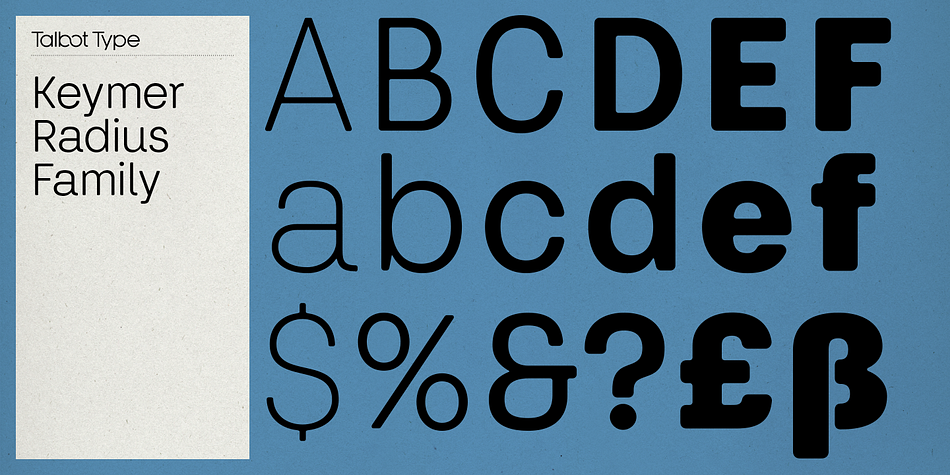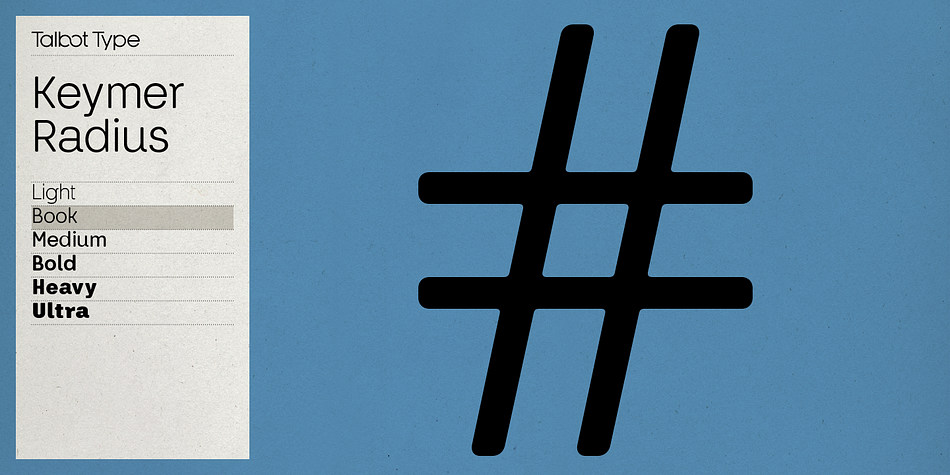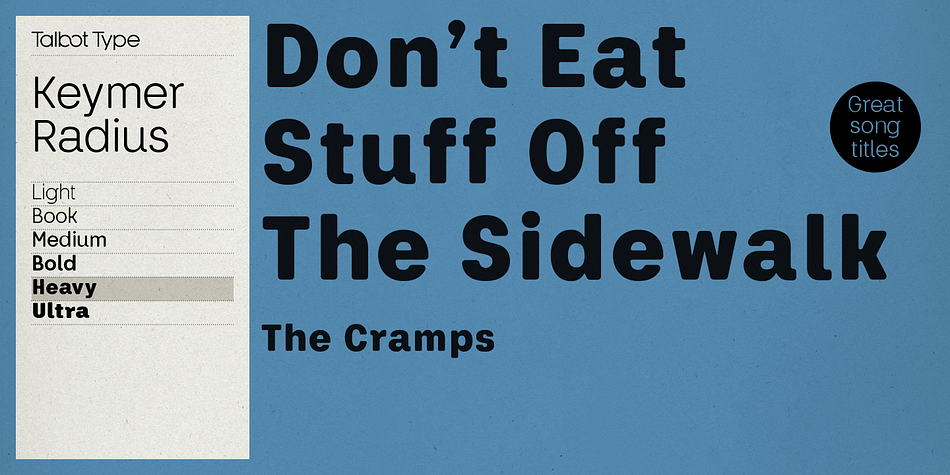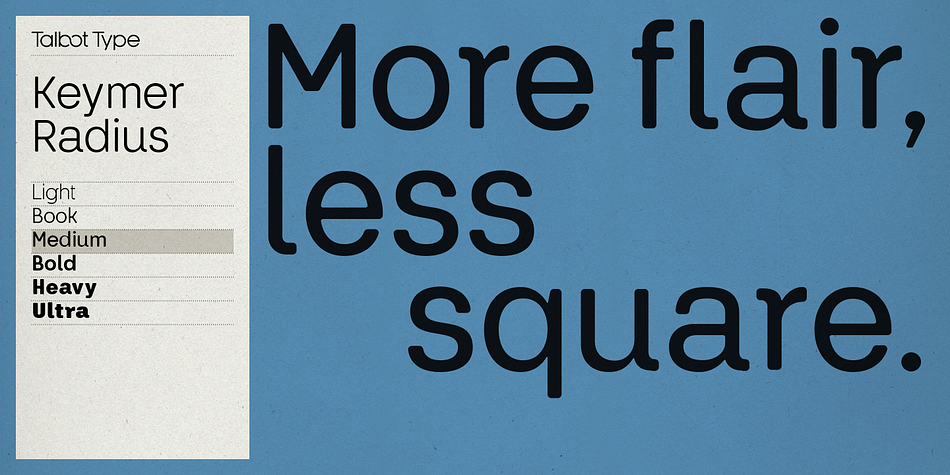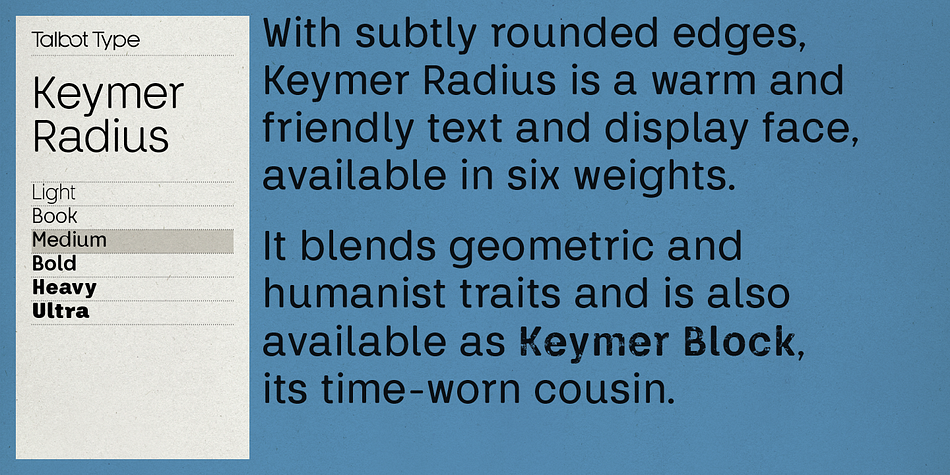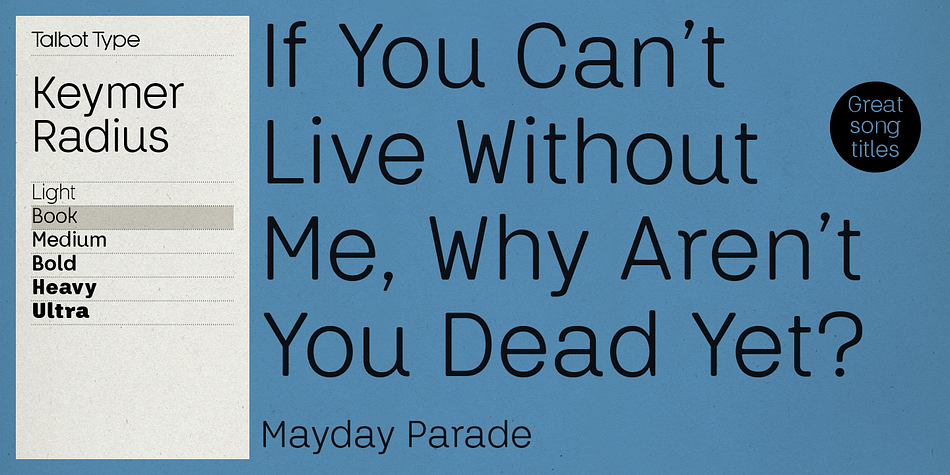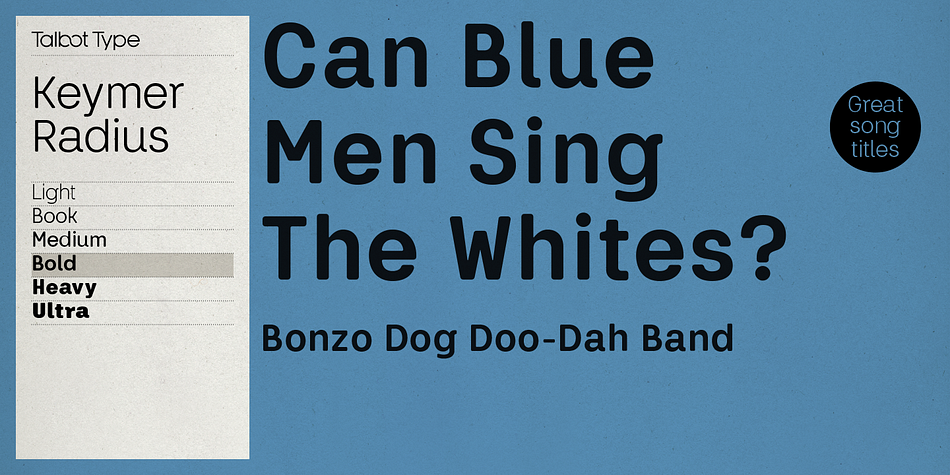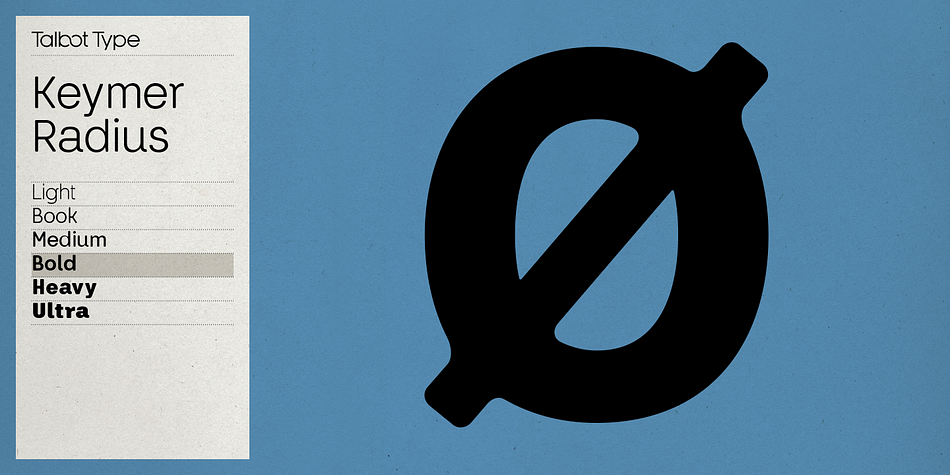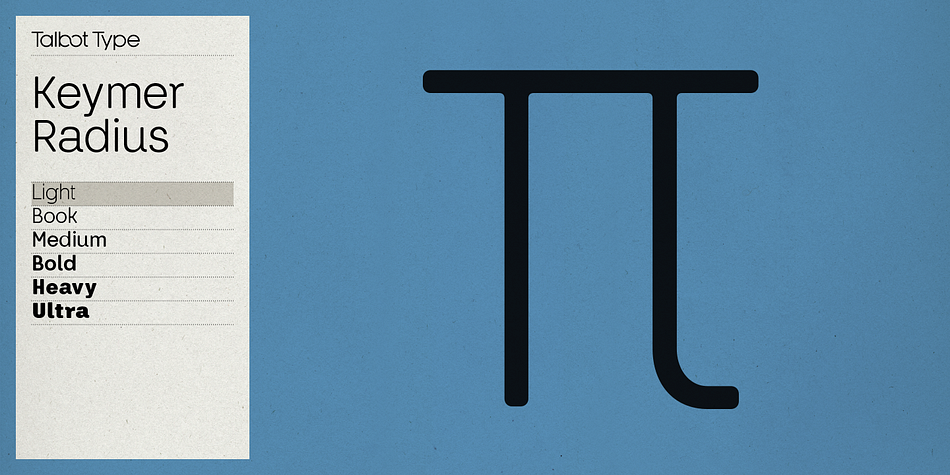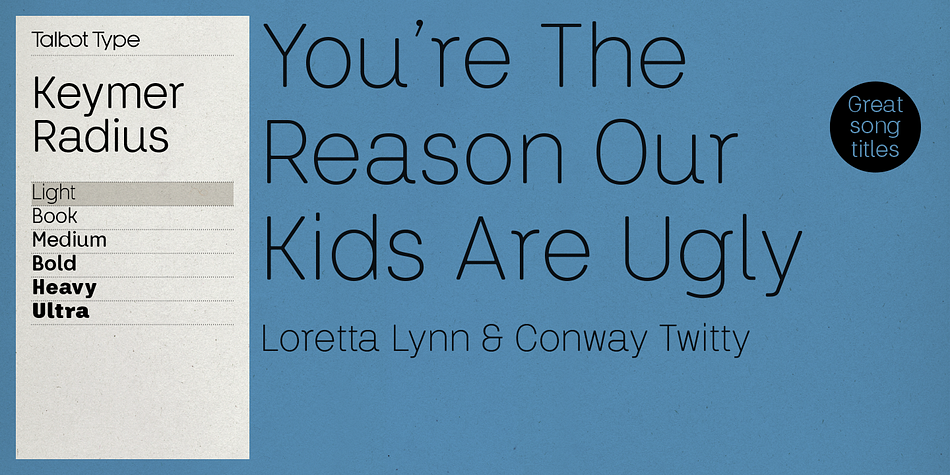
Designed by Adrian Talbot, Keymer Radius is a sans serif font family. This typeface has twelve styles and was published by Talbot Type.
Talbot Type Keymer Radius is related to Talbot Type Keymer; where Keymer is square-edged, Keymer Radius is subtly rounded for a softer look.
Keymer Radius mixes geometric and humanist traits to achieve a modern, clean, elegant appearance. It is a legible and versatile text and display face available in six weights.
Keymer Radius features an extended character set to include old style numerals, accented characters for Central European languages and bespoke characters in the italic for a more flowing look.